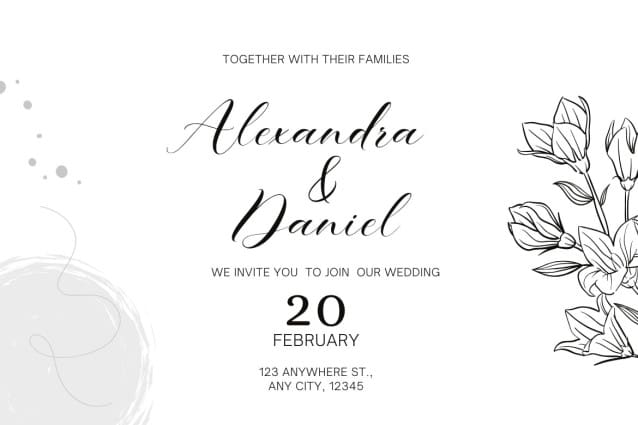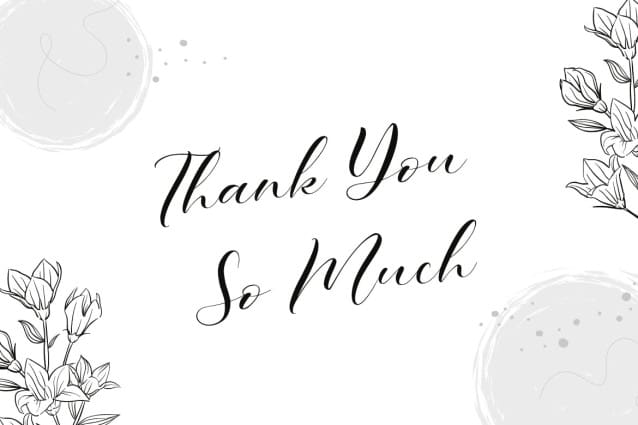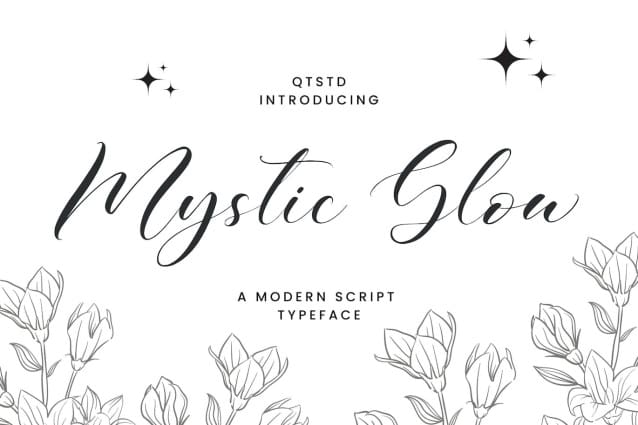
Mystic Glow Font
Mystic Glow Font, a modern typeface that gives your designs an otherworldly charm. This typeface is a dance of contemporary elegance and timeless appeal, providing the perfect balance for a myriad of creative projects.
Mystic Glow is designed to captivate, with each letter crafted to convey a feeling of fluidity and sophistication.
Whether you’re designing invitations, creating social media posts, or working on branding projects, Mystic Glow shines with its versatility. The clean lines and graceful curves of this typeface lend a touch of magic to your text, making it a great choice for those looking to add a touch of the extraordinary to their designs.